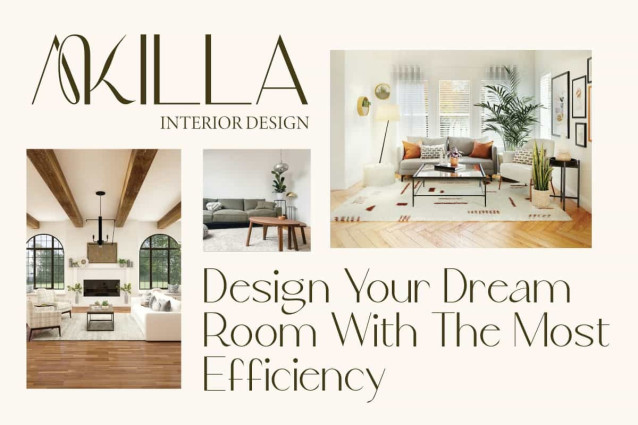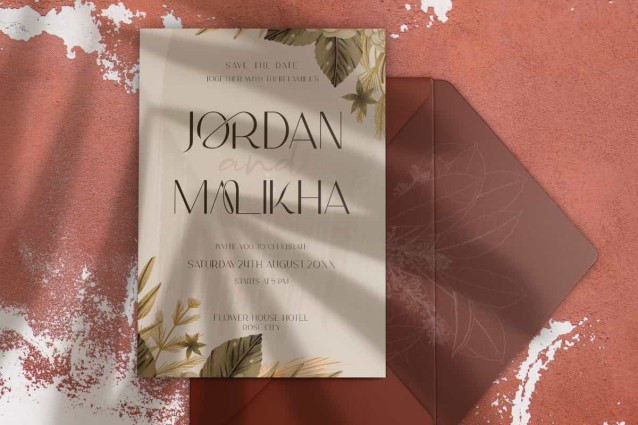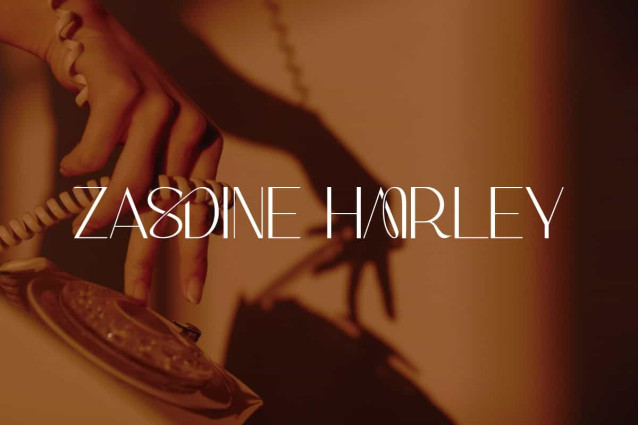
Zasdine Hairley Font
Zasdine Hairley Font is a modern sans serif display font with an elegant touch. This font has unique characteristics with thin line elements and artistic details that give a luxurious and classy impression. This font will be perfect for any project, such as advertisement, blog, branding, gift box, invitation, label, layout design, quotes, signboard, template design purpose, website, and many more.
Zasdine Hairley Font includes full set of Uppercase and Lowercase Basic Characters, Numerals, Punctuation, and Symbol. Fonts with connected ligature characters create an elegant and modern look. It’s perfect for accessories and jewelry, cosmetic, event or wedding organizer, fashion, florist, furniture, real estate, skincare, spa salon, etc.